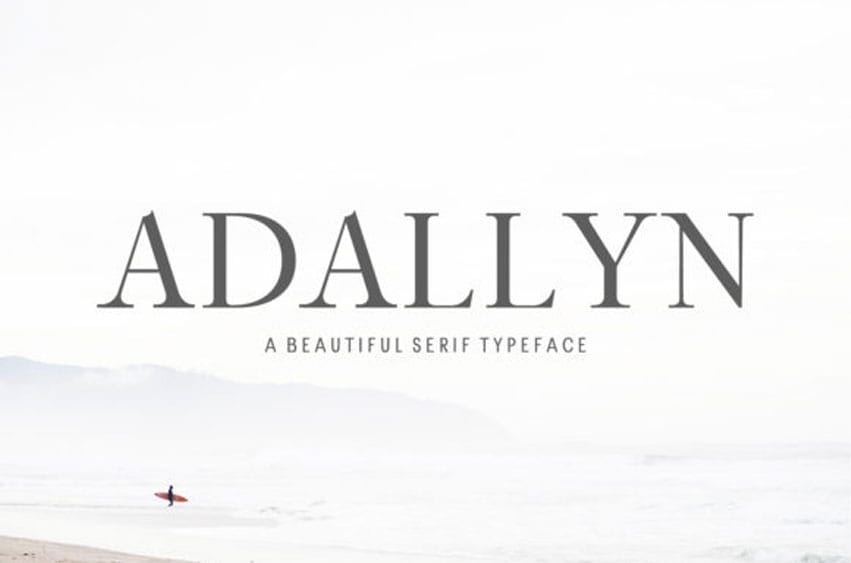
Adallyn Family Font is a clean serif family. It comes in five variations which all have a modern look.
It can be used for headlines, posters, branding, packaging, presentations, logos, quotes, titles, magazine headings, and nearly any other creative design.